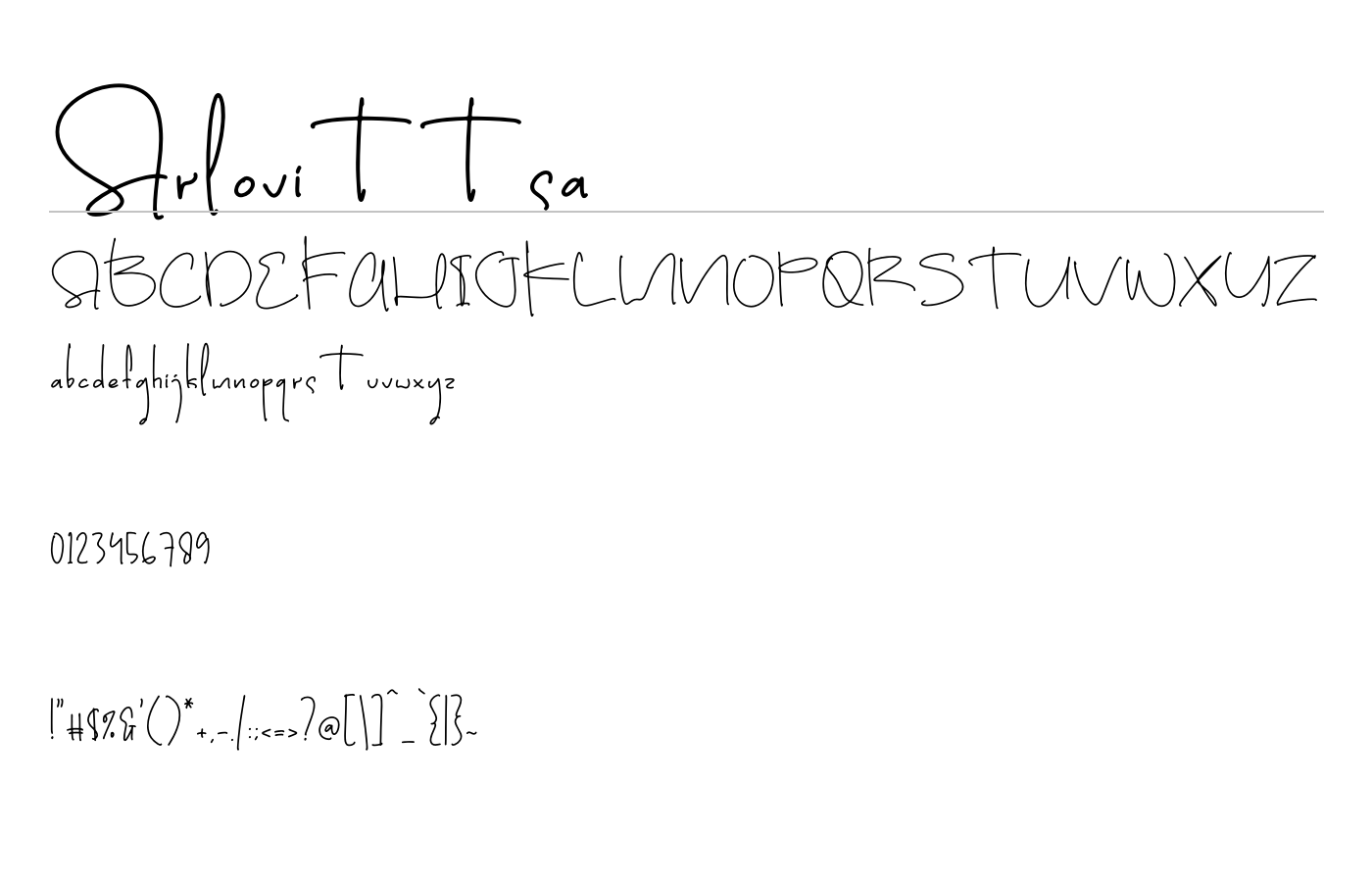
Arlovittsa is a delicate, handwritten-style font with thin, uneven strokes that give it an authentic and personal touch. Its tall, narrow letterforms and playful irregularities evoke a whimsical, casual feel, making it ideal for creative and informal designs, such as personal branding, invitations, or artistic projects seeking a unique, approachable vibe. This font’s airy and light appearance works best in larger sizes for headlines or decorative text rather than dense body copy.
Arlovittsa Font
About Arlovittsa Font